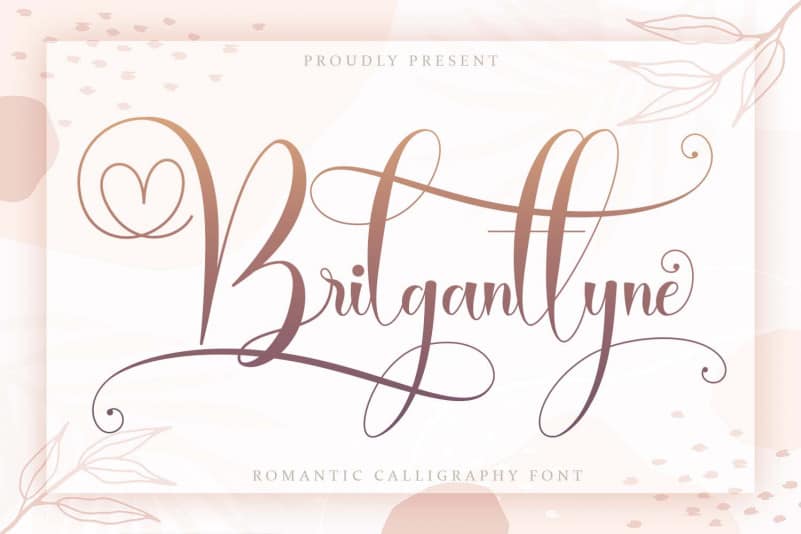
Brilganttyne Script Font
Brilganttyne is a romantic calligraphy script typeface, will be suitable for any projects such as branding projects, home ware designs, product packaging, mugs, quotes, posters, shopping bags, t-shirts, book covers, name card, invitation cards, greeting cards, label, photography, watermark, special events, and all your other lovely projects that need beautiful calligraphy taste.